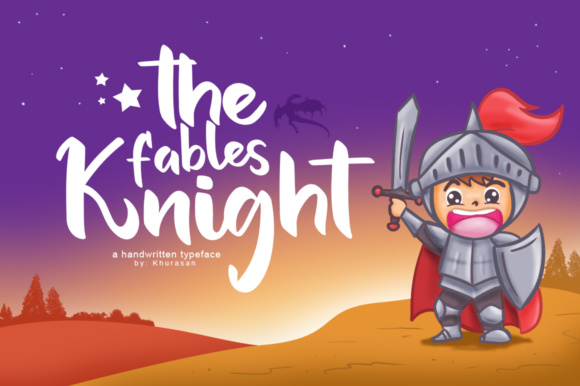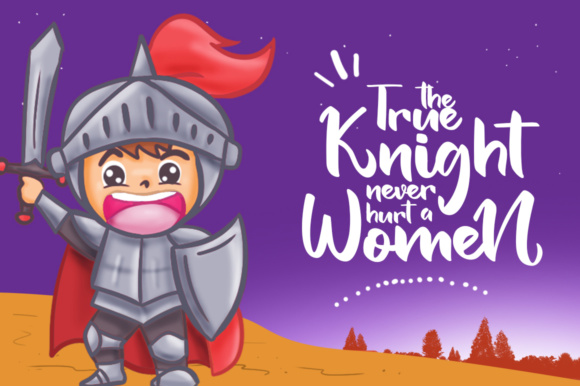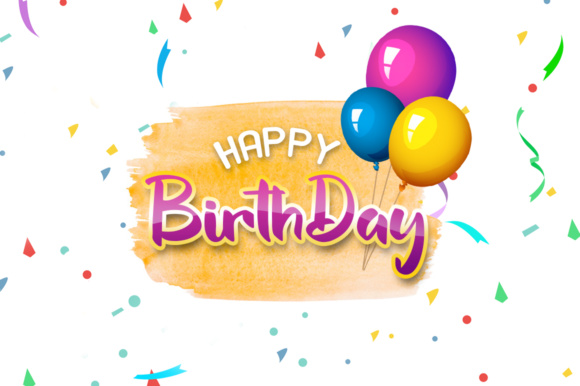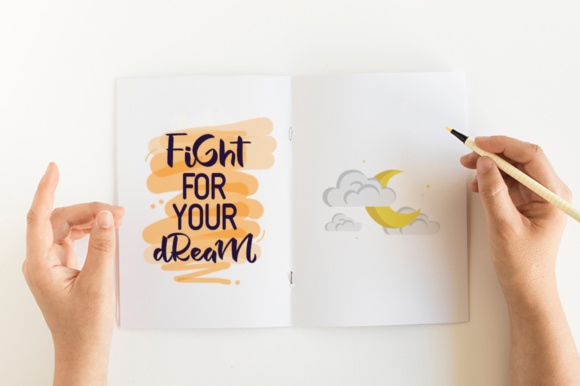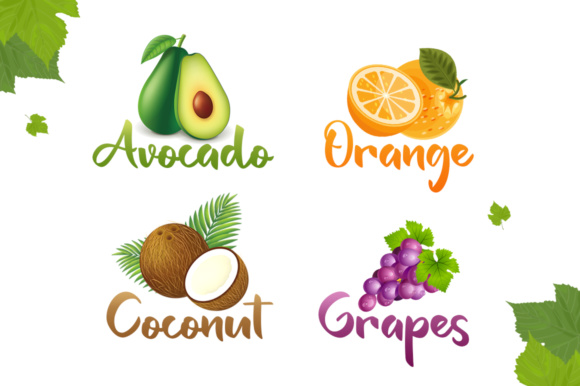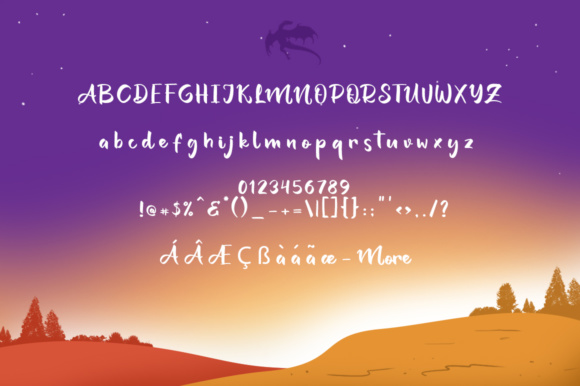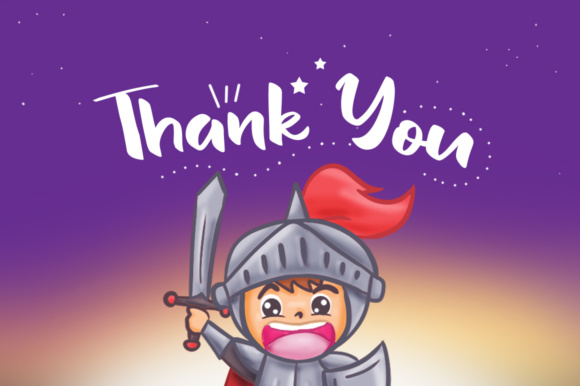
The Fables Knight Font
About The Fables Knight Font
The Fables Knight is a a bold script typeface with a cheerful theme. It is great for various designs such as: logos, branding, greeting cards, posters and any other design that needs a fun feel.